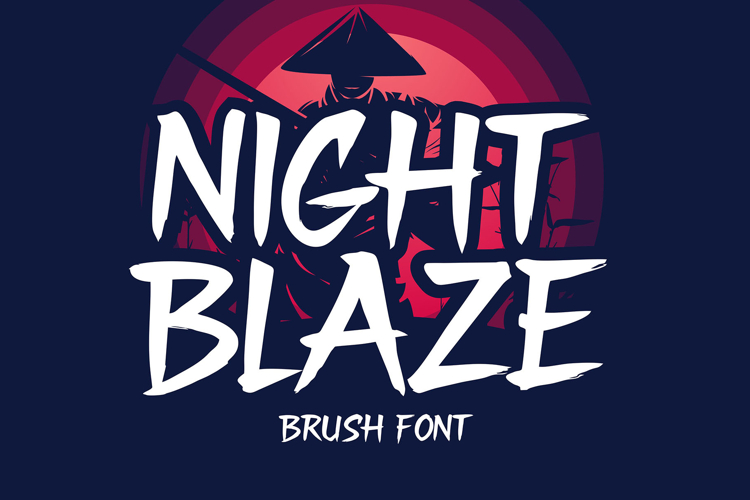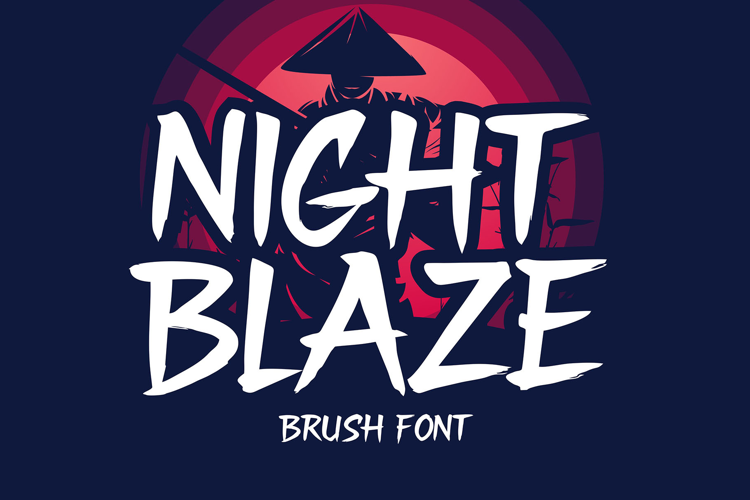
Night Blaze - Japanese Brush Font
Night Blaze is a powerful Japanese brush font crafted with bold strokes and raw intensity. This allcaps display typeface mimics traditional Japanese calligraphy, infused with modern edge—perfect for posters, digital covers, logos, gaming titles, and movie visuals. If your design needs drama, action, or tension, Night Blaze delivers it with every letter.
The Best Japanese Brush Font for Action-Packed Visuals Night Blaze isn’t just a font—it’s a visual experience. Designed for impact, it evokes the spirit of Japanese brushwork while giving modern designs a gritty, cinematic feel. From horror titles to samurai themes, Night Blaze gives your words strength, motion, and mood in every bold uppercase letter.
Multilingual Support for Global Creators This Japanese-inspired display font supports multilingual characters, allowing you to create cohesive, expressive visuals in multiple languages. Perfect for international branding, Video thumbnails, or campaigns with an Asian aesthetic.
Key Features
- � Allcaps Japanese Brush Style
- � Multilingual Character Support
- � Strong Visual Weight for Headlines & Posters
- � Ideal for game titles, horror covers, Japanese themes, and film graphics
- � Designed for projects that need energy, emotion, and boldness
Why Designers Love Night Blaze Designers choose Night Blaze for its expressive strokes and powerful presence. It’s more than just a Japanese brush font—it’s a tool to amplify emotion and intensity. From fan art to professional branding, this font makes any message feel urgent and unforgettable.